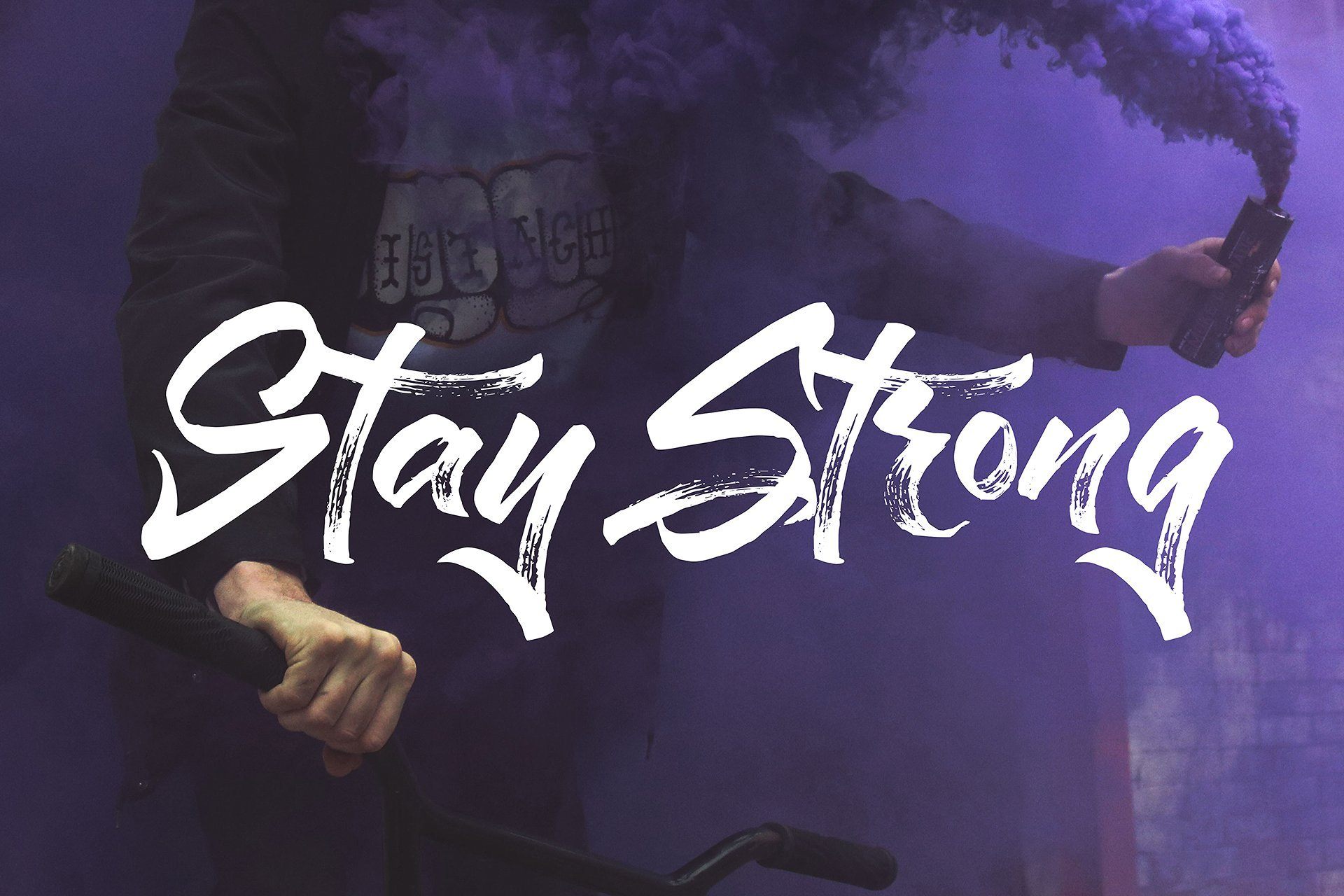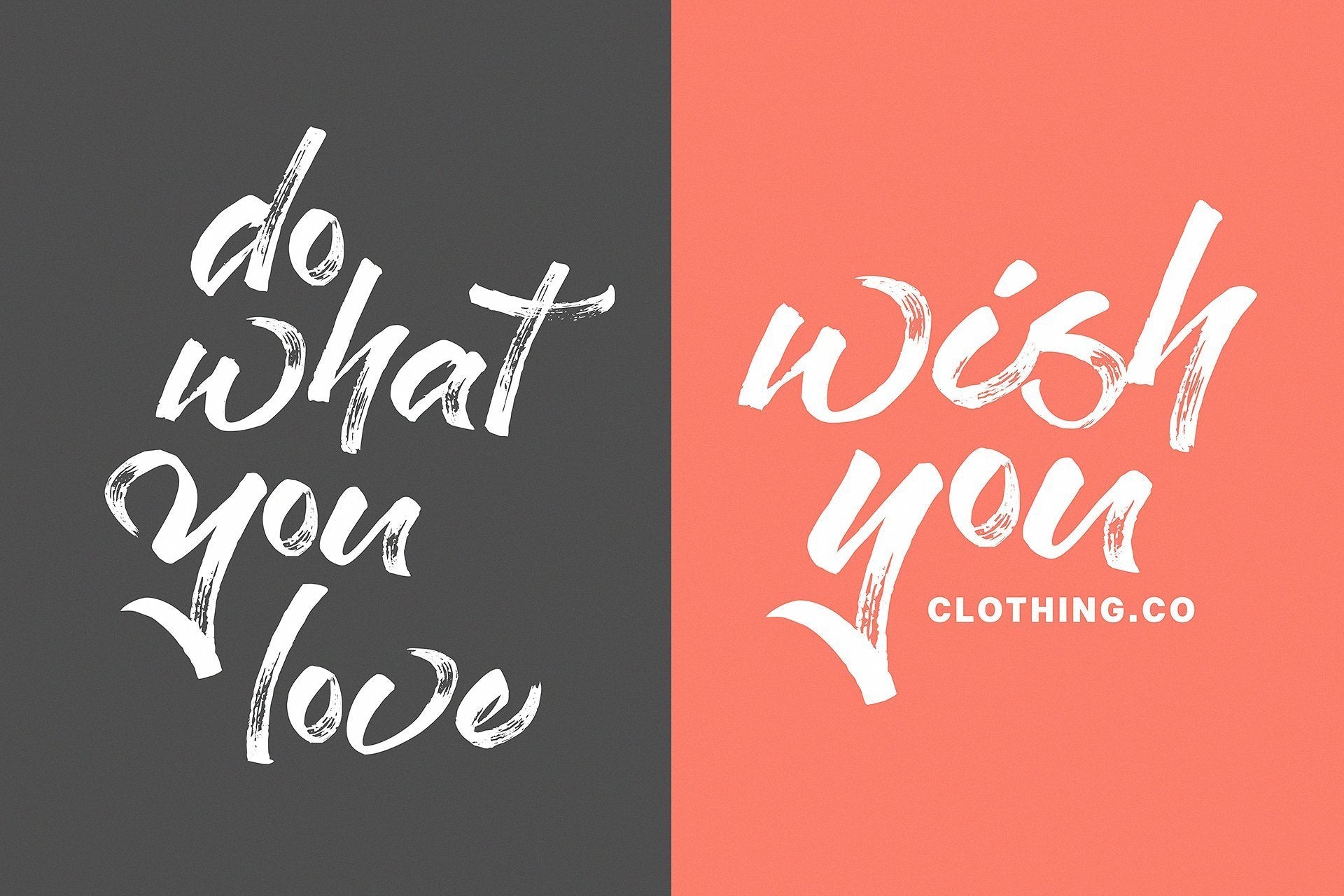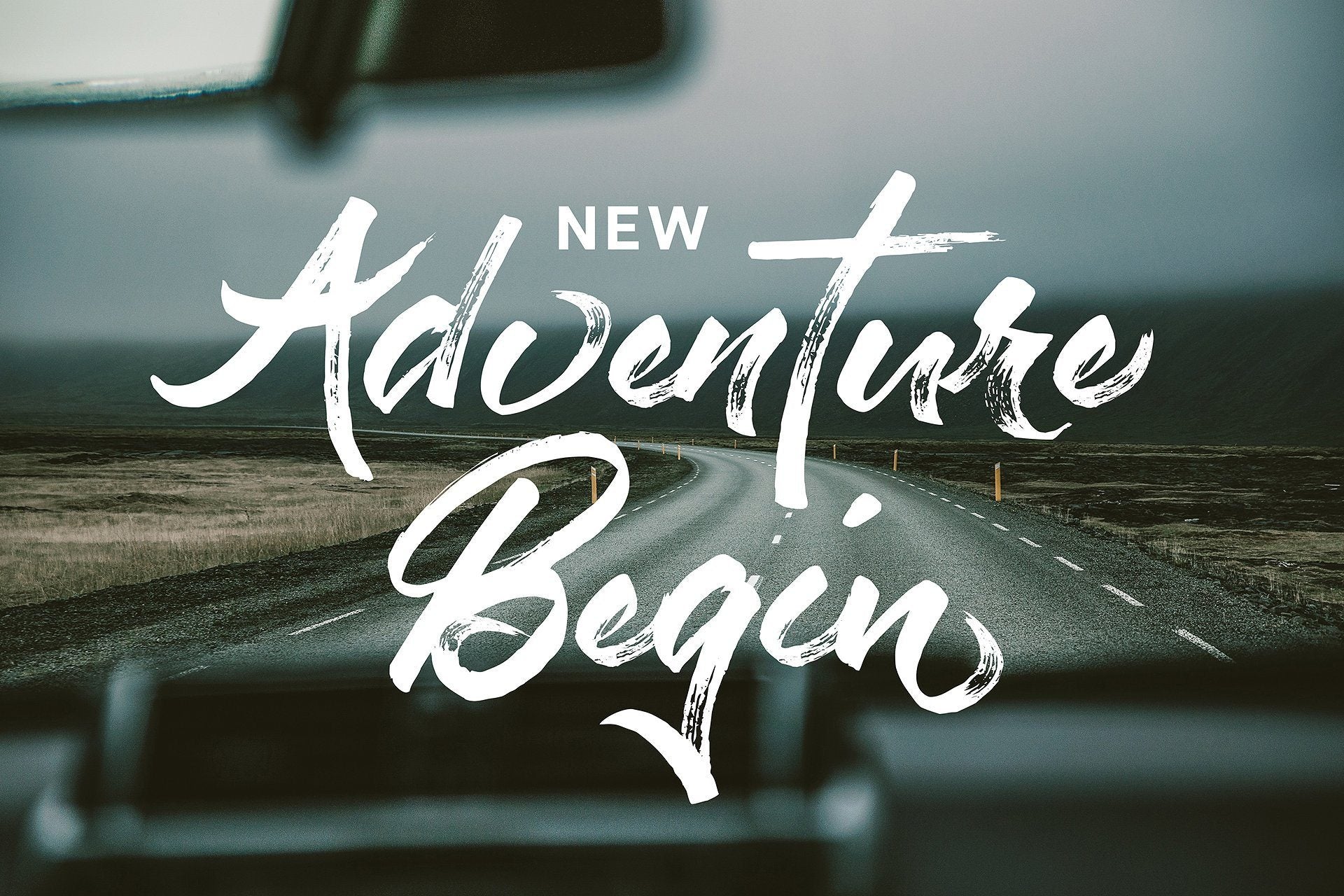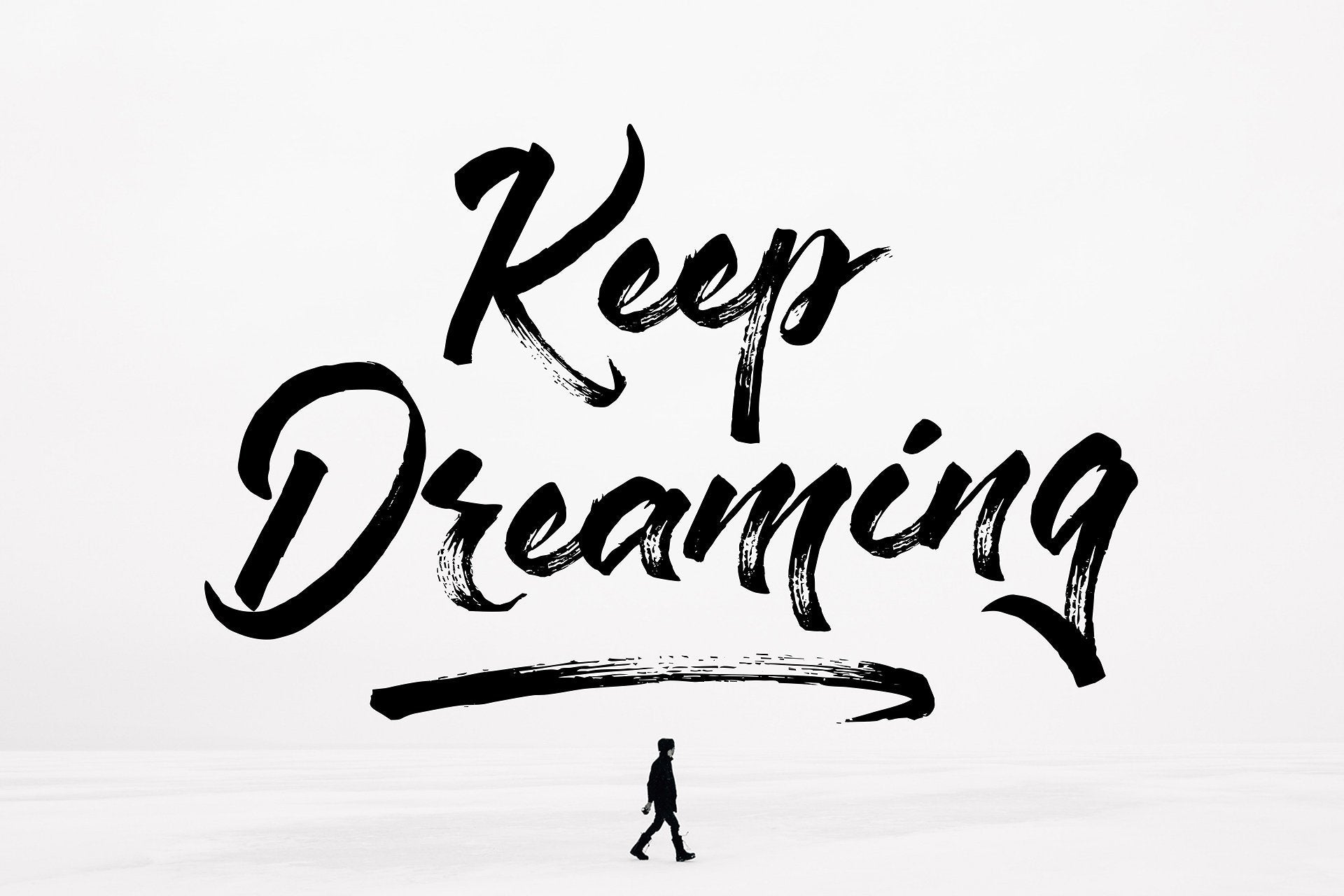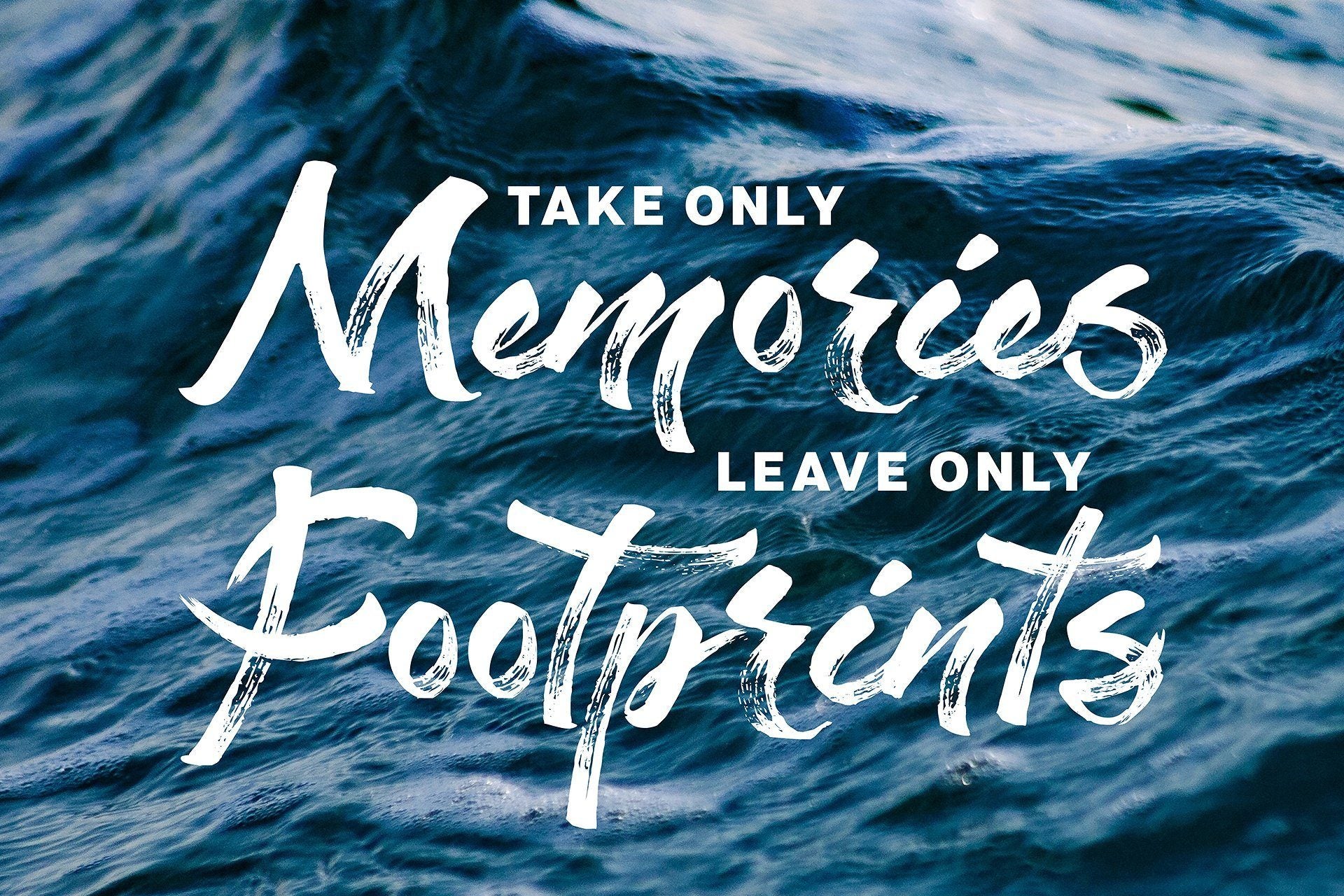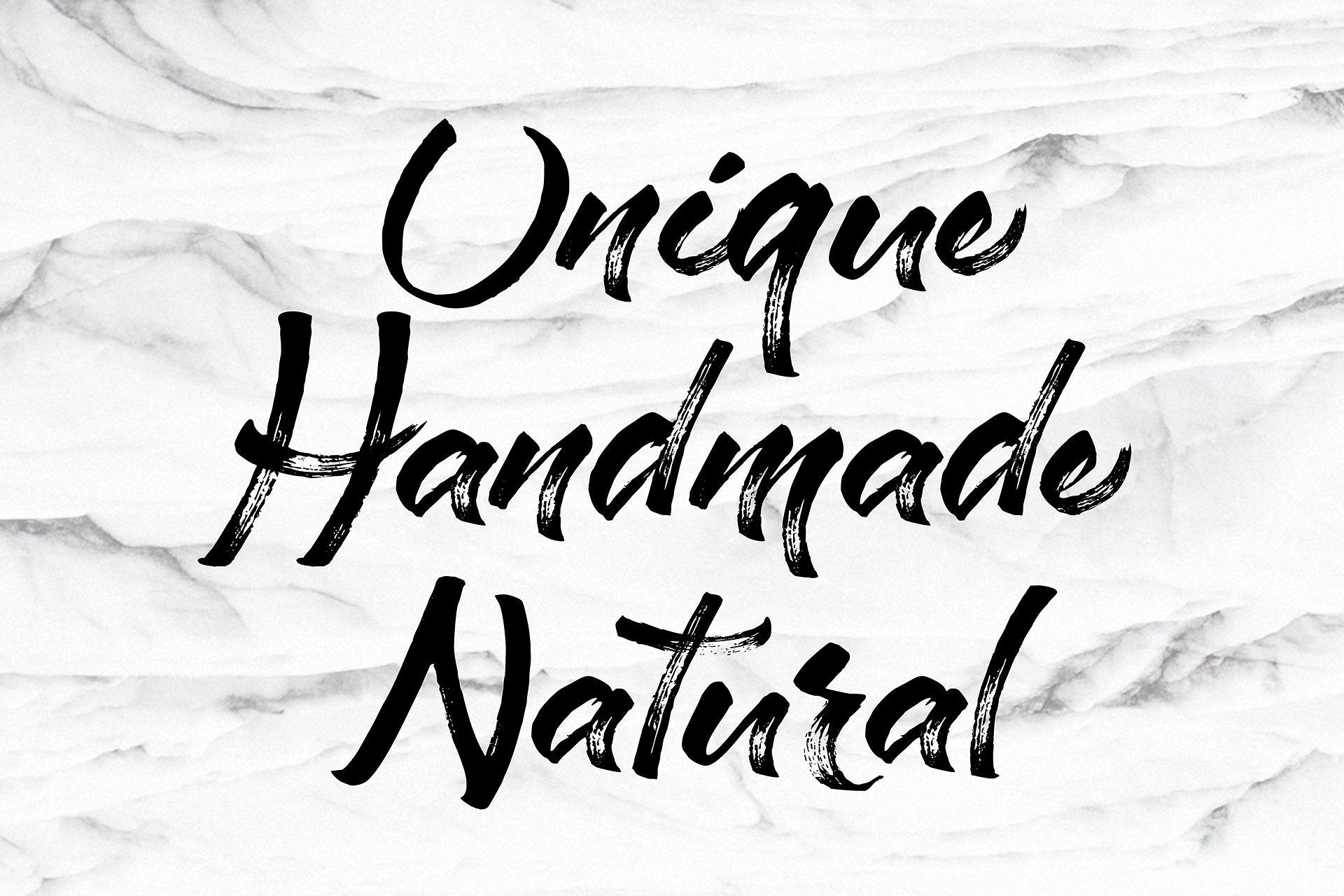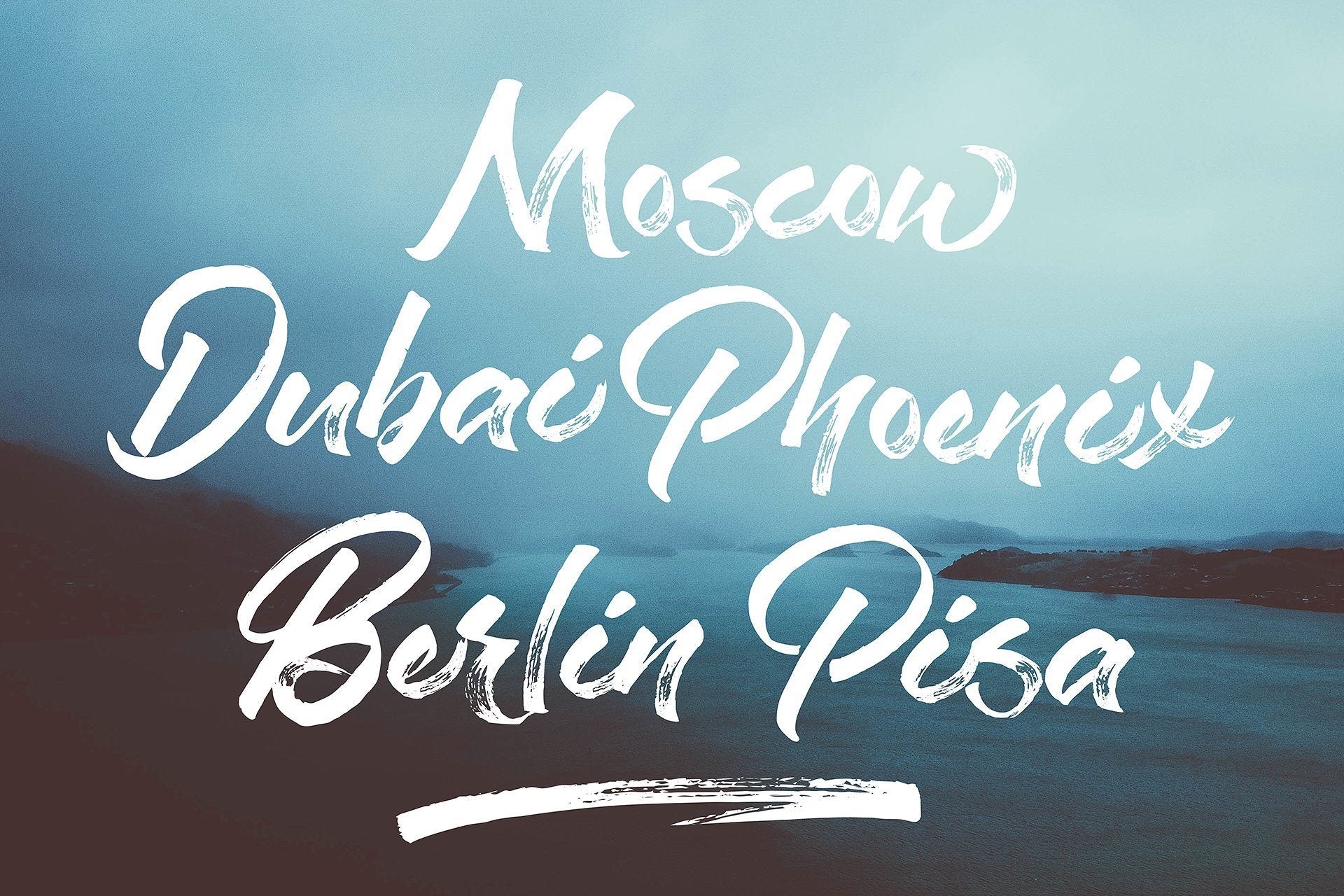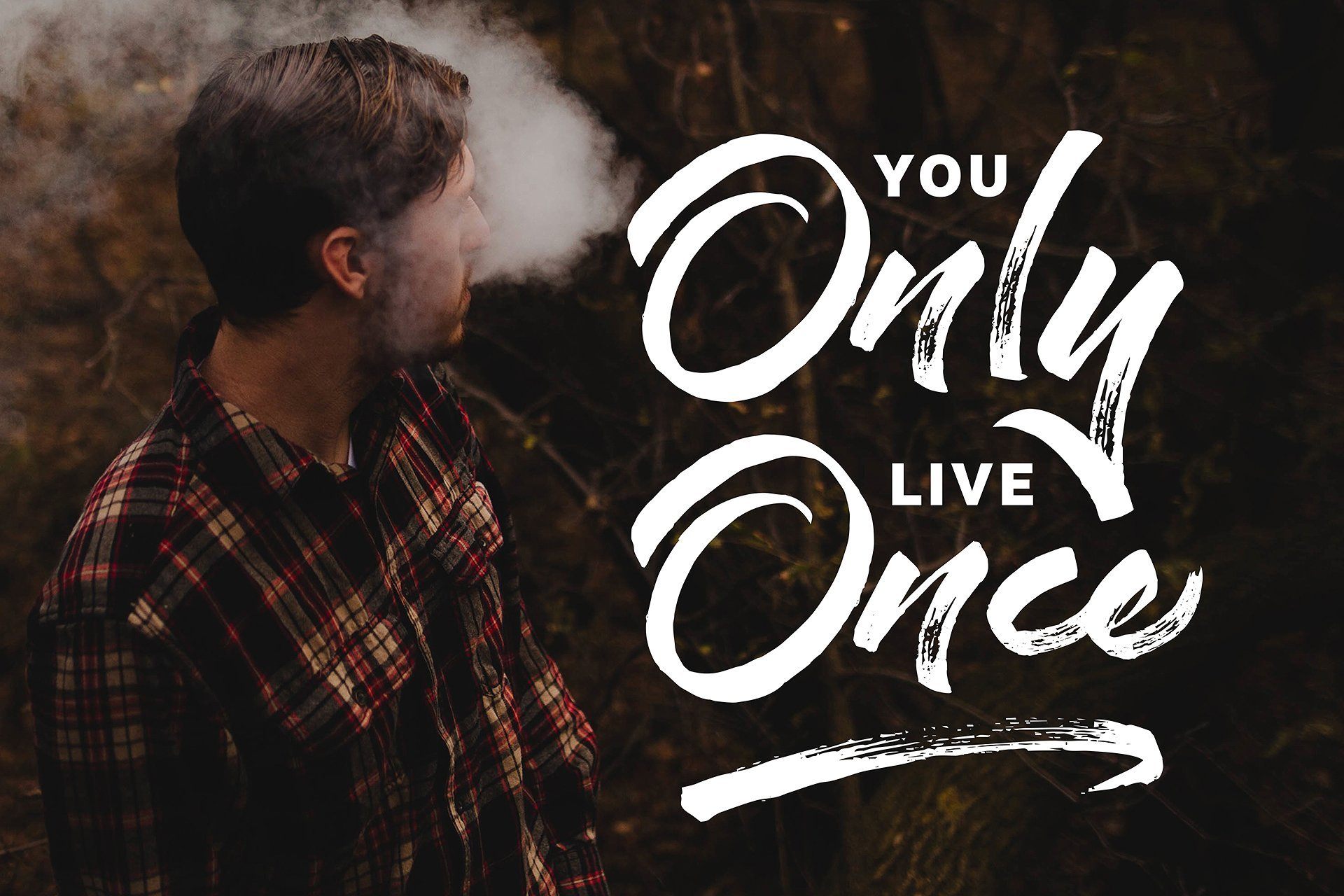
Staychill Brush Font
About Staychill Brush Font
Staychill is unique textured brush font, contemporary approach to design, handmade natural with an irregular baseline. Suitable for use in title design. Such as apparel, invitations, books tittle, stationery design, quotes, branding, logos, greeting card, t-shirt, packaging design, poster and more. Staychill includes a complete set of uppercase and lowercase letters, as well as multi-language support, numbers, punctuation, alternates and ligatures. Fonts Included OTF, TTF Files: Staychill Extra If you have any questions or problems, please don’t hesitate to message me.